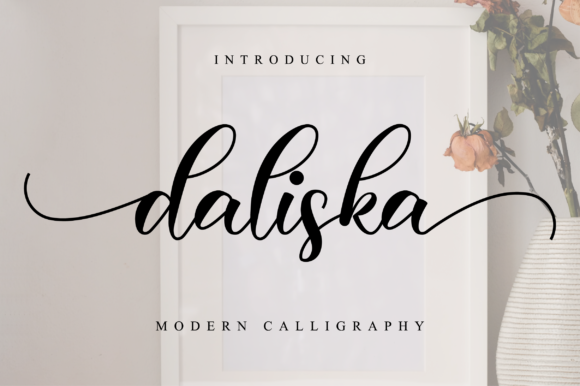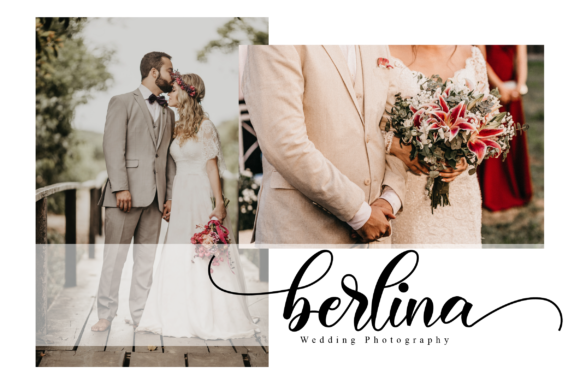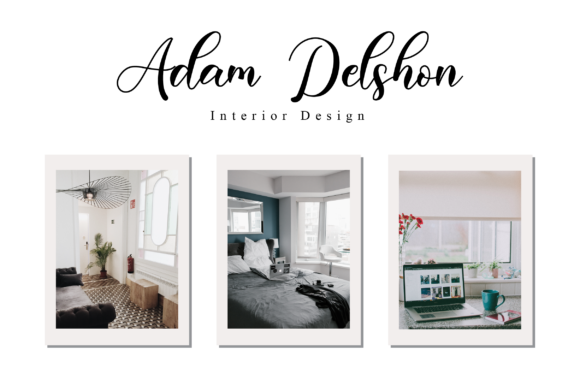
Daliska Font
Daliska is inspired by classic typography and brings its own unique style to any design project. Whether you’re looking for fonts for Instagram or calligraphy scripts for DIY projects, this handwritten font will turn any creative idea into a true piece of art!